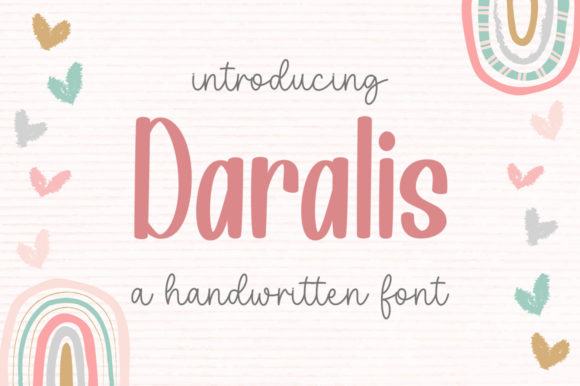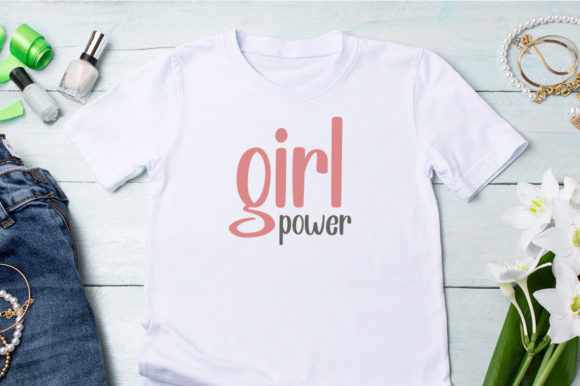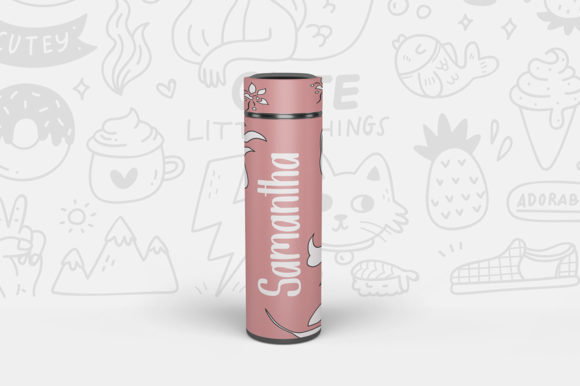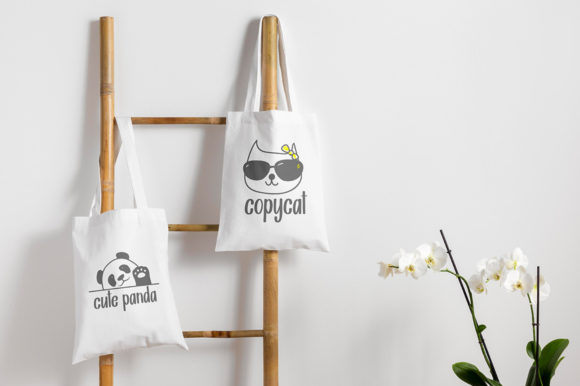
About Daralis Font
Daralis is a casual and trendy handwritten font. You can use it for Instagram or calligraphy scripts for DIY projects, this font will turn any creative idea into a true piece of art!